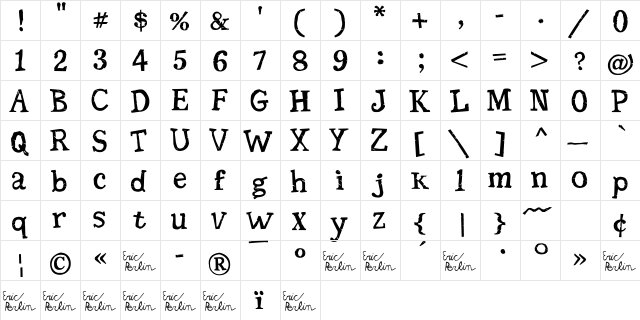
Seriffic Grunge Bold
Design Context for Seriffic Grunge Typeface
Seriffic Grunge trades polish for personality, using distressed and eroded forms to bring grit and attitude to creative work.
A strong fit for alternative music projects, graffiti-adjacent design, and anything that deliberately resists polish.
Pro Tip: Use Seriffic Grunge at larger sizes where the texture and irregularity of each letterform can be clearly seen — it loses its character at small sizes.